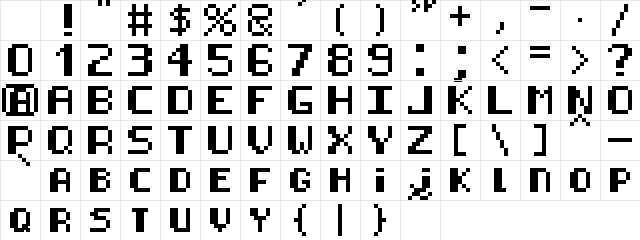
Complete 8-bit pusab Regular glyph index. Displaying only characters natively supported by 8-bit pusab Regular font.
8-bit pusab is a composed and adaptable typeface that performs quietly and consistently across a wide range of design contexts.